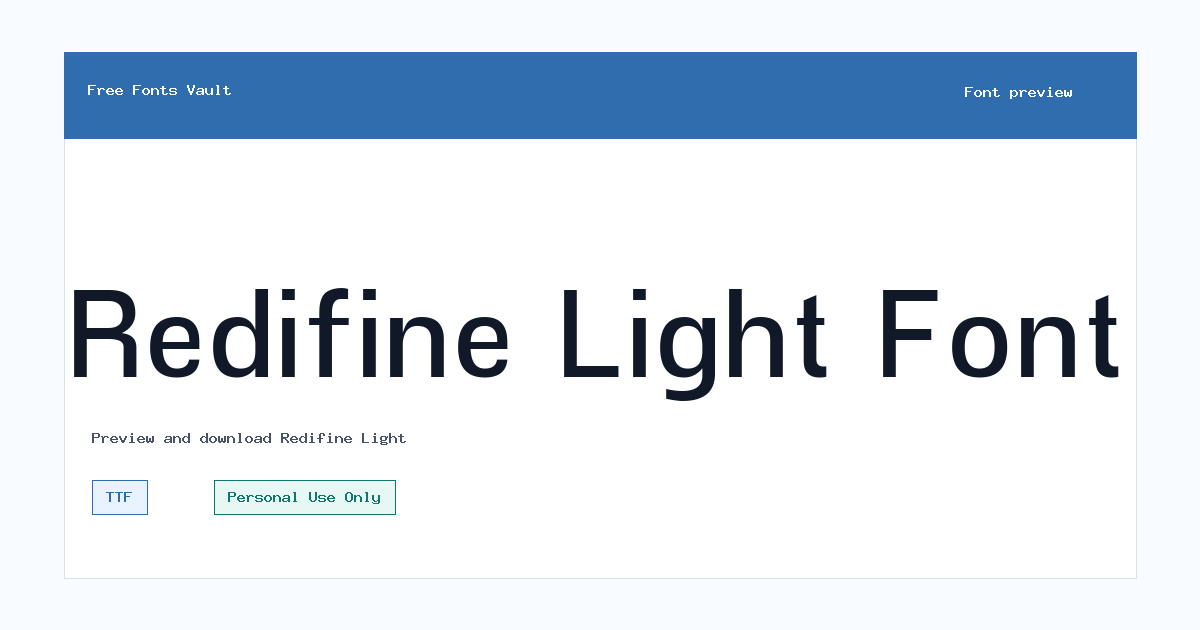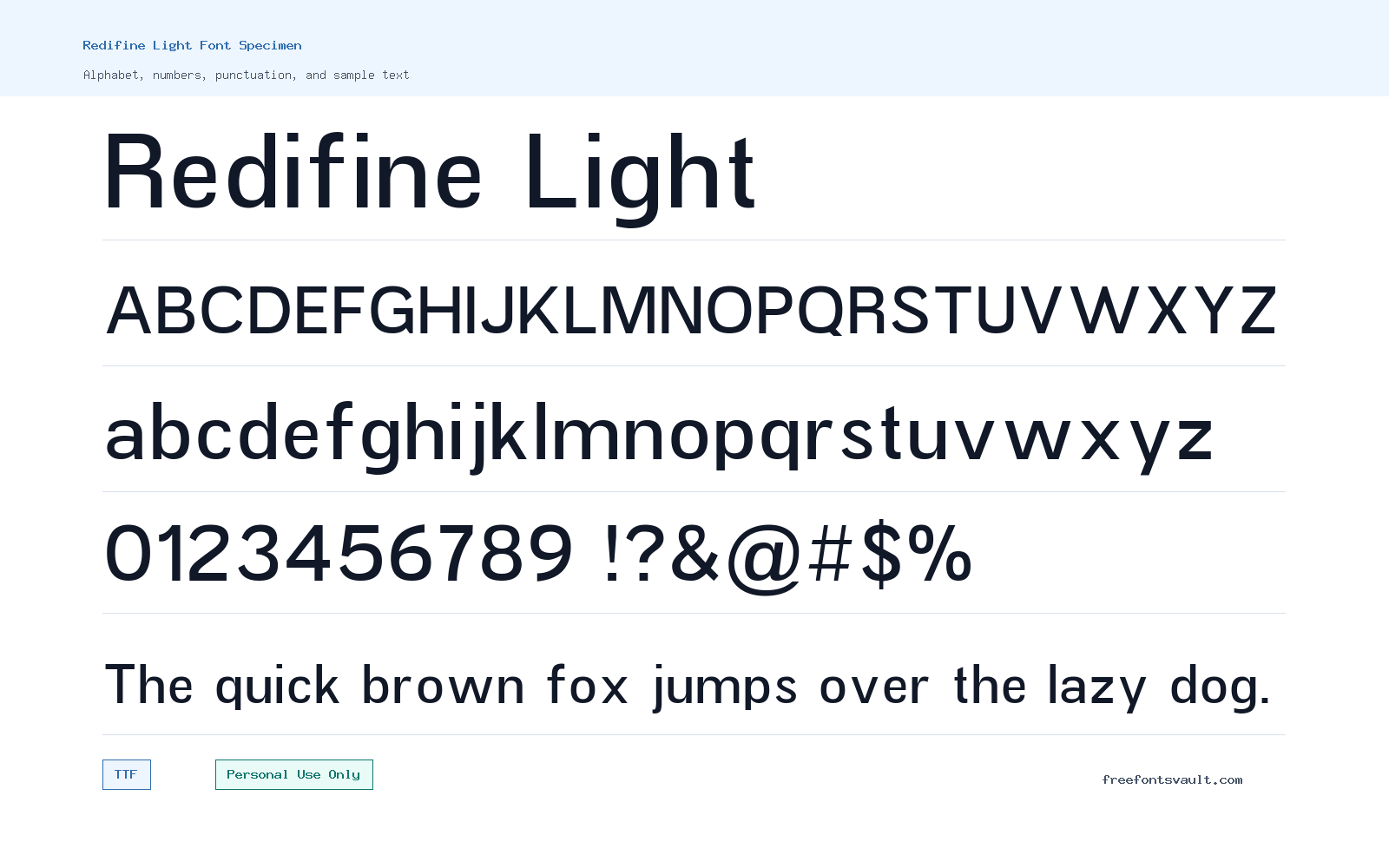
Redifine Light
Redifine Light font.
Redifine Light is a light-weight sans serif font from Muhamad Fikry Nuralif and Fikryal Studio. It is a good choice to test when you need a cleaner, lighter type style for headings, display text, posters, branding drafts, or web mockups.
About Redifine Light
Redifine Light uses a 300-weight style, which makes it better suited to airy layouts than heavy headline treatments. Light fonts can give a design a calmer and more refined feel, especially when there is enough space around the letters. Use the preview to check how the thin strokes behave in your own words, because very light type can lose strength at small sizes or on busy backgrounds.
For logo work, Redifine Light may be useful during early concept development where a simple sans serif direction is needed. It can also work in poster titles, social graphics, editorial-style headings, presentation covers, and clean website mockups. Keep the wording short when testing it: names, titles, taglines, and short phrases usually show a light sans serif more clearly than long paragraphs. If you plan to use it for body text, test it carefully at the final size and on the final background color before deciding.
When pairing Redifine Light, avoid matching it with another delicate font that competes for attention. A stronger sans serif, a readable serif, or a simple system font can give it better contrast. For example, use Redifine Light for a title and pair it with a regular-weight text face for descriptions. In posters or social media layouts, increase letter spacing carefully and keep the background uncluttered so the lighter strokes remain readable.
- Light 300-weight sans serif style for clean headings and display text
- Normal style with a regular variant
- Useful for short titles, logo drafts, posters, and web mockup typography
- Best tested at larger sizes because light strokes may reduce readability in small text
- Personal design experiments
- Logo concept drafts
- Poster headings
- Social media graphics
- Website and app mockups
- Presentation covers
- Short taglines
- Minimal editorial-style layouts
What type of font is Redifine Light?
It is identified as a light-weight sans serif font. The available style is a normal 300-weight TTF variant.
Is Redifine Light good for body text?
It may not be the best first choice for long body text because light fonts can become harder to read at small sizes. Test it carefully, or use it for headings and pair it with a regular-weight text font.
What should I pair with Redifine Light?
Pair it with a more readable regular-weight sans serif or a simple serif font. The goal is to keep Redifine Light for emphasis while the paired font handles longer text clearly.